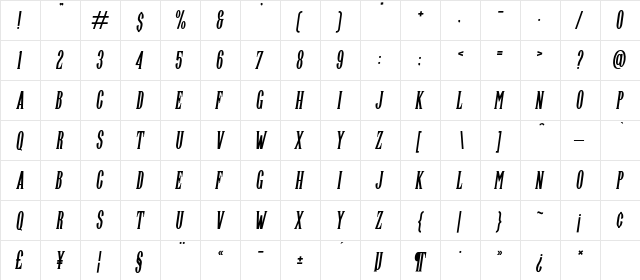
Highwind Italic
Design Context for Highwind Typeface
Highwind is a composed and adaptable typeface that performs quietly and consistently across a wide range of design contexts. The slanted form adds forward momentum and visual energy.
Pro Tip: Use Highwind for emphasis, pull quotes, and subheadings where its slanted energy can add rhythm to the layout.